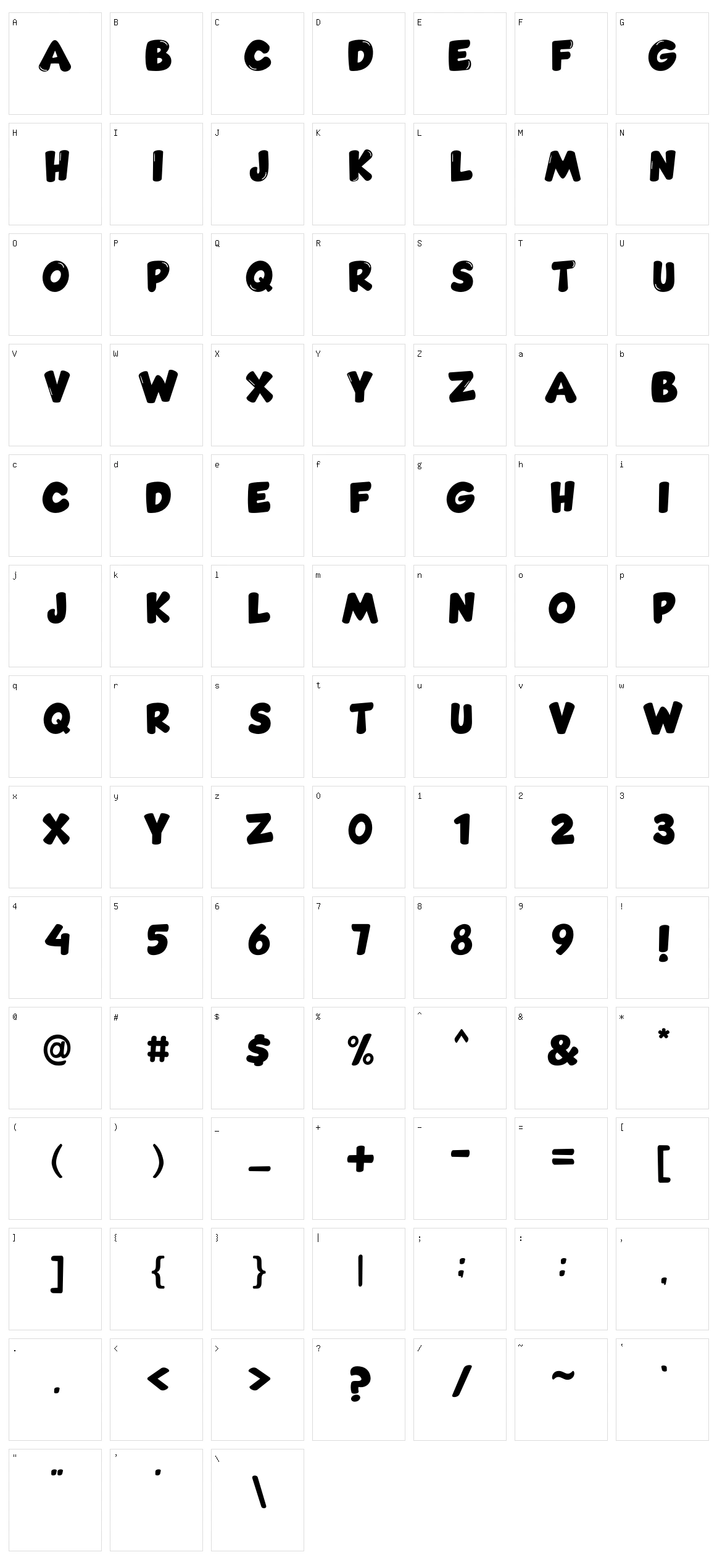
The free font Comic Gecko is carefully designed by MaknaStudio, showcasing a thoughtful balance of creativity and usability and falls under the Cartoon font style. When you download the ZIP file, it contains only 1439.86 KB of font files, making it lightweight and quick to download. Please review the license details below to understand permitted usage and distribution rights. If license information is not available, we recommend using this font for personal projects only or contacting the author directly for commercial usage permissions.